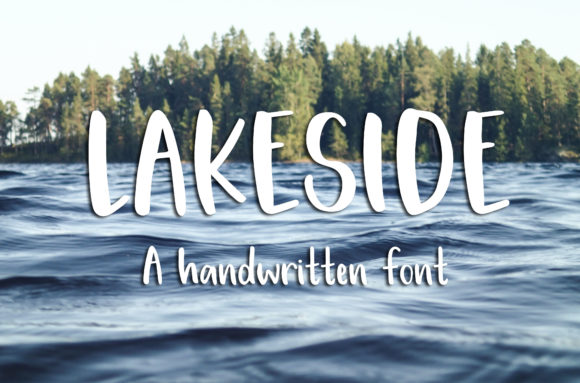
Welcome to the realm of Lakeside Font, a script font family that captures the essence of creativity and transforms your digital canvases into masterpieces. This enchanting font, crafted by the skilled hands of dansiedesign, is the perfect companion for your Instagram posts, adding a touch of whimsy and charm to your social media presence.
Beyond the digital realm, Lakeside Font shines in the world of DIY projects, effortlessly elevating your handmade creations. Its intricate strokes and playful curves bring a personal touch to cards, invitations, and other papercraft endeavors, making them truly one-of-a-kind.
This font is not merely a collection of letters; it's an invitation to unleash your creativity and let your imagination soar. Lakeside Font breathes life into your designs, inspiring you to think outside the box and explore new artistic possibilities.
With Lakeside Font at your fingertips, you'll discover a newfound passion for crafting. Its versatility knows no bounds, allowing you to create unique and captivating designs that reflect your personal style.